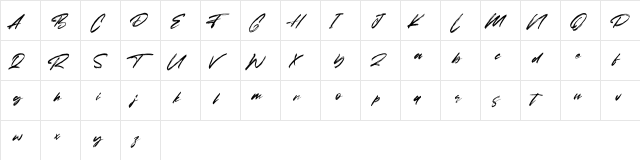
Amores Free Font Regular
| Foundry | MaulanaCreative |
| Designer | MaulanaCreative |
Design Context for Amores Free Font Typeface
Amores Free Font is a composed and adaptable typeface that performs quietly and consistently across a wide range of design contexts.